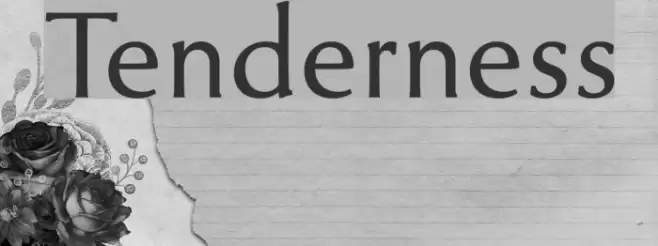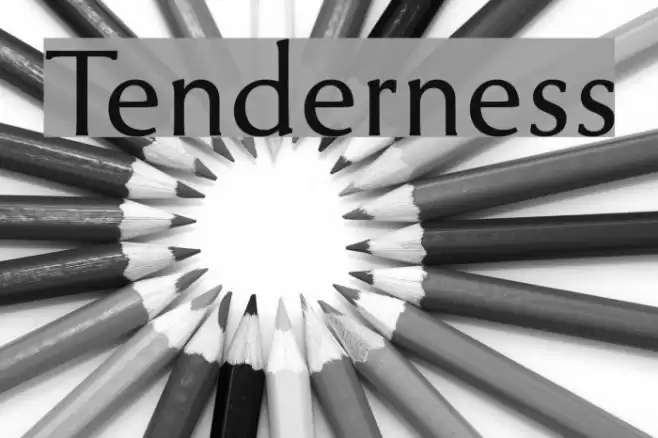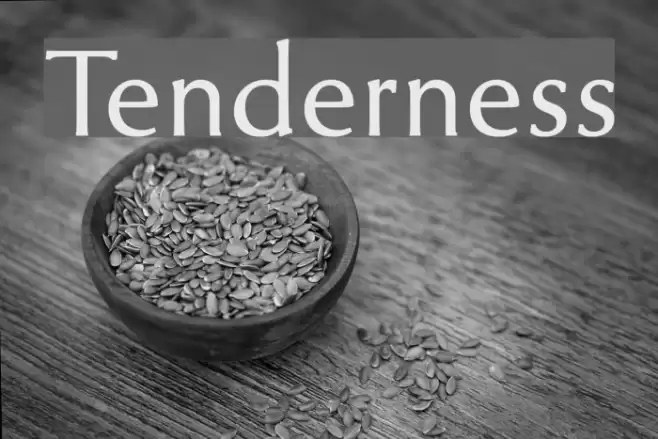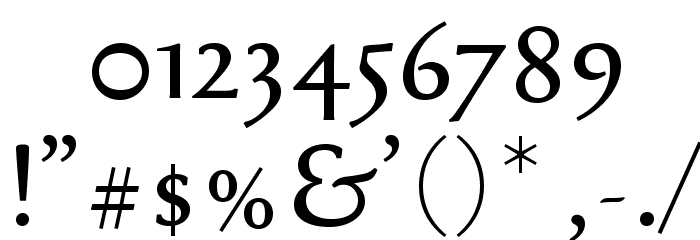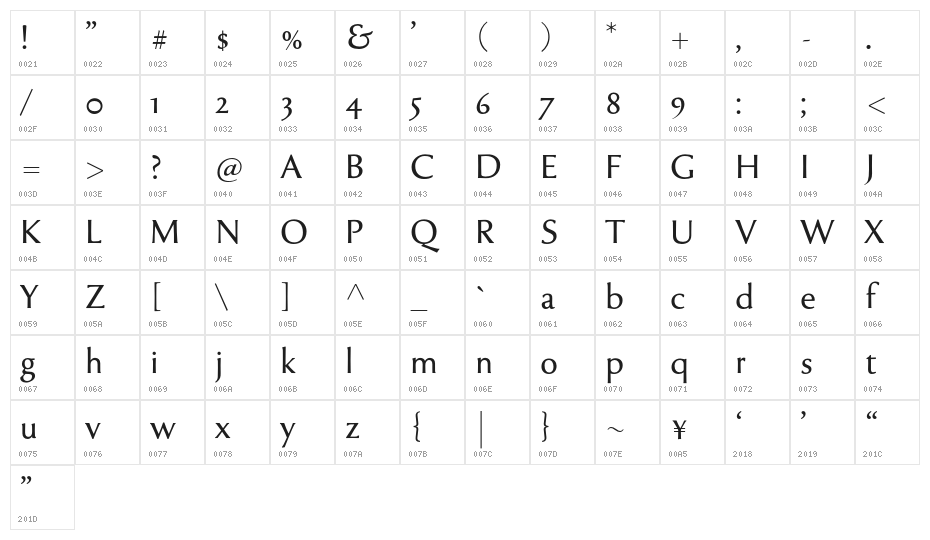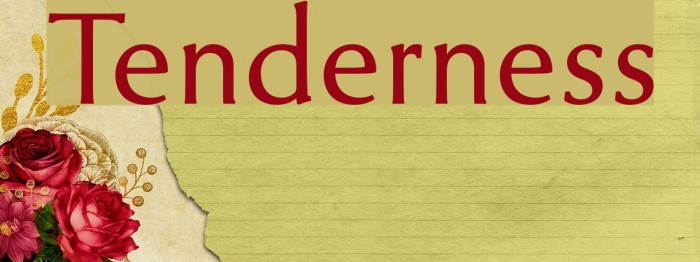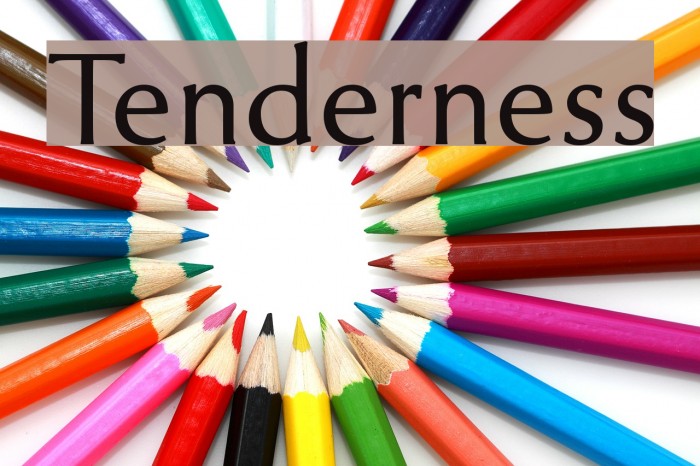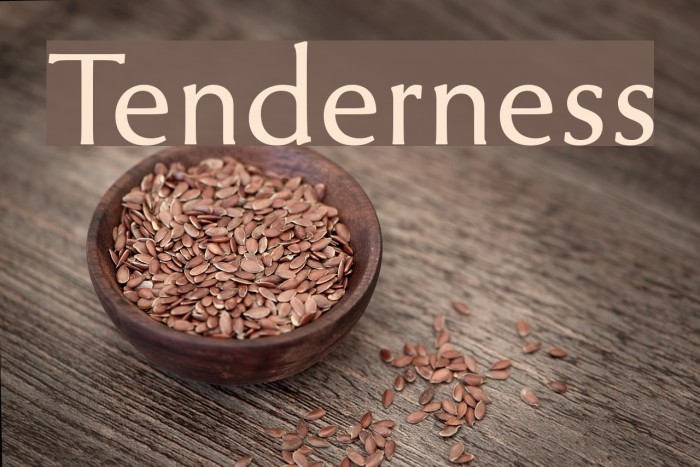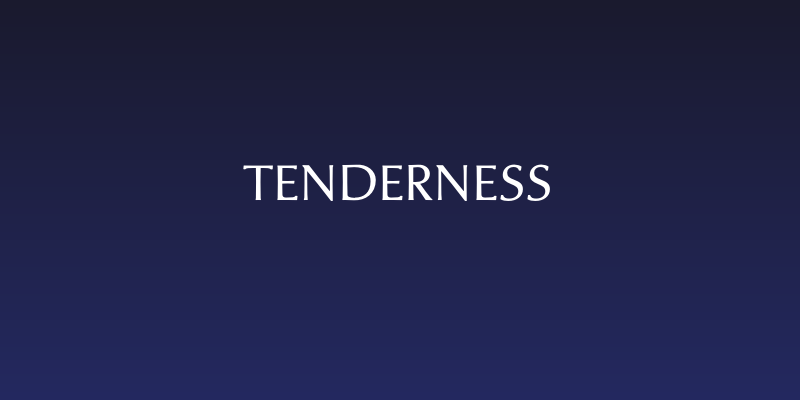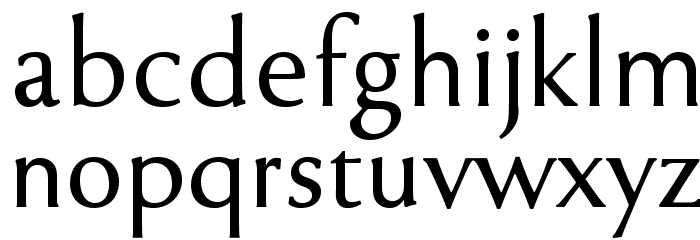
Tenderness Font
Tenderness Description
This font exudes a classic elegance with its refined serif style, characterized by clean lines and subtle curves. The uppercase letters are bold and commanding, while the lowercase letters maintain a graceful flow, making it versatile for various design needs. The numerals are clear and distinct, ensuring readability. Special characters are thoughtfully designed, adding to the font's overall sophistication. The balance between thick and thin strokes provides a medium contrast, enhancing its legibility and aesthetic appeal.
A classic serif font with elegant lines and medium contrast from Uncategorized fonts.
- Proposed Projects: Ideal for book covers, formal invitations, branding, and editorial design.
- Overall Style: Classic